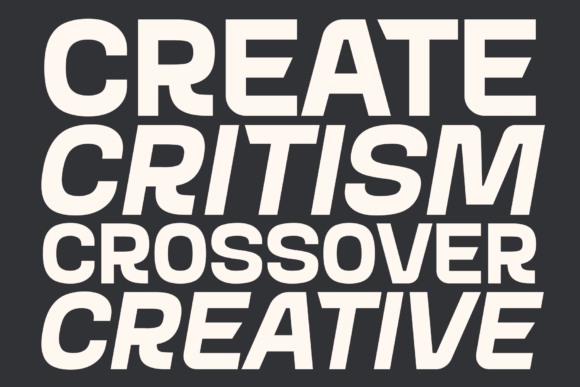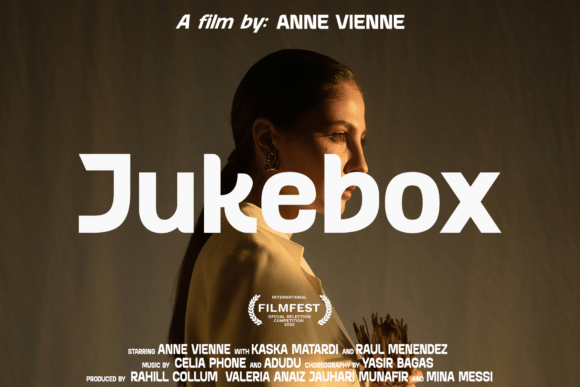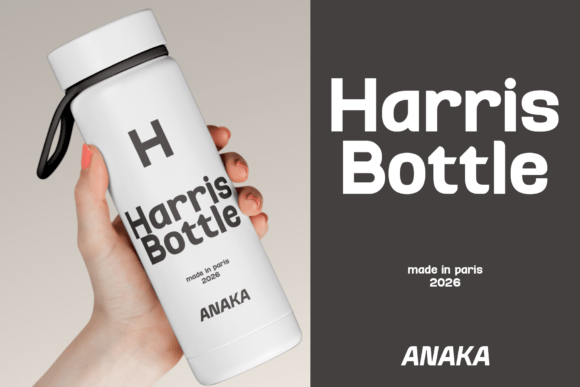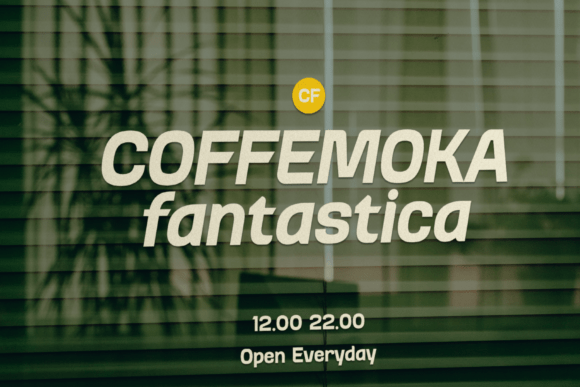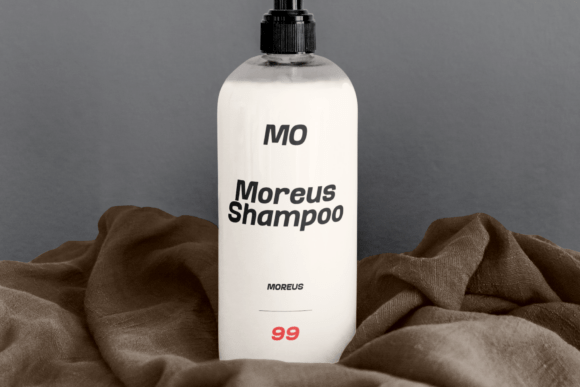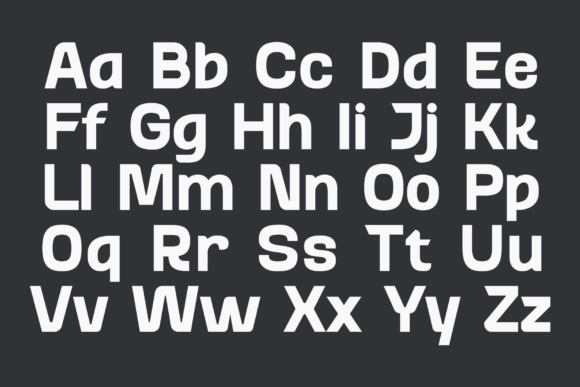
The Perfect Typographic Companion
Have you ever stared at a blank canvas, searching for the perfect font to bring your design to life? The cursor blinks, taunting you with possibilities. Suddenly, a clean sans serif font duo pops into your mind, and your creative juices start flowing. This is the moment when the right font can make all the difference.
Enter Arkane Font, a modern and professional sans serif font duo designed to elevate your designs. With its bold geometric shapes and smooth curves, Arkane Font is perfect for branding, logo design, and editorial layouts. Its versatility makes it a valuable asset for designers seeking to create a cohesive visual identity.
Arkane Font Key Features
- Font Family: Arkane is a sans-serif font family designed for digital use, offering a modern and clean look.
- Character Set: The font family includes a wide range of characters, including Latin, Cyrillic, and Greek alphabets, as well as punctuation and symbols.
- Unique Characteristics: The font’s distinctive features include a rounded edge on the letter ‘e’, a unique ‘a’ design, and a clean, geometric shape, making it stand out in digital design.
Arkane Font Review
As a designer, I was excited to dive into the world of Arkane Font. On the surface, it’s a stunning typeface that combines elegance and modernity in a single font. ✨ The font’s fluid lines and subtle nuances make it perfect for various design projects, from branding to digital media.
Here are some key features that I found particularly impressive:
- ✨ Highly customizable: The font comes with a wide range of styles, weights, and variations, making it easy to adapt to different design contexts.
- ✨ Excellent legibility: The font is incredibly easy to read, even at small sizes, making it perfect for digital applications.
- ✨ Aesthetic versatility: The font’s sleek design makes it suitable for a wide range of industries, from fashion to tech.
- ⚠️ Limited support for special characters: While the font is generally excellent, I found that it struggled to render certain special characters, such as accented letters and symbols.
- ⚠️ Overuse potential: With so many styles and weights available, it’s easy to overuse the font, which can lead to visual fatigue.
Overall, I’d say that Arkane Font is a solid choice for designers looking for a modern, elegant typeface. While it’s not perfect, its strengths far outweigh its limitations, making it a great addition to any design toolkit.
The Arkane Font is a versatile font suitable for various designs, including:
- Logo designs
- Business cards
- Wedding invitations